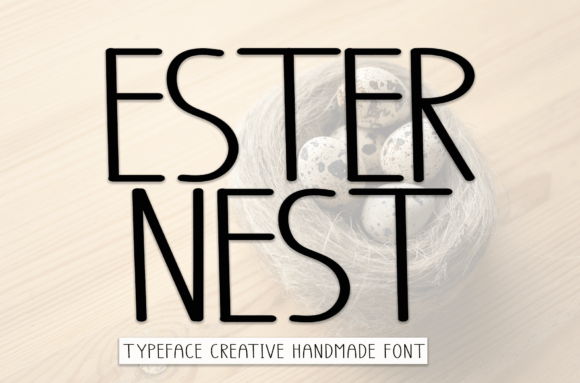
Unleashing Whimsy with the Ester Nest Font
Have you ever been stuck trying to craft the perfect invitation for a friend’s wedding, but all your words feel too formal? You know, that moment when you wish you could convey the joy and love with a font that’s as sweet as the occasion itself?
That’s where Ester Nest Font comes in – a charming handwritten font that’s perfect for adding a touch of whimsy to your designs. This delightful font is ideal for writing wedding invitations, cards, or any other project that needs a dash of fun and personality. As a designer, you’ll appreciate the versatility of Ester Nest Font, which can add a fresh and neat feel to your work.
Ester Nest Font Key Features
- Font Family: Ester Nest is a modern sans-serif font family designed for digital use.
- Unique Characteristics: Ester Nest features a unique blend of geometric and organic shapes, resulting in a clean and sophisticated design aesthetic.
Ester Nest Font Review
First off, I have to say that I’m really impressed with the overall aesthetic of the Ester Nest font. The combination of modern and vintage elements creates a unique look that can be quite captivating ✨. The font’s curves and lines work well together to evoke a sense of elegance and sophistication, making it perfect for high-end branding and design projects ✨.
The font is also incredibly versatile, working well for both body text and headings. The letterforms are well-spaced, making it easy to read even at smaller font sizes ✨.
- ⚠️ The font may not be the best choice for projects that require a more playful or casual tone, as it can come across as somewhat formal.
- ⚠️ Some users may find the font’s vintage elements to be a bit too ornate or distracting, especially at larger font sizes.
Overall, I think the Ester Nest font is a solid choice for designers looking to add a touch of sophistication to their projects. While it may not be the best fit for every project, it’s definitely worth considering for high-end branding and design work.
To get the most out of the Ester Nest Font, use it sparingly and strategically. Pair it with a clean and simple font for body text to create a balanced design. Experiment with different font sizes, colors, and styles to add depth and interest to your design.
The Ester Nest Font is ideal for:
- Typography-based designs
- Special occasion cards and gifts